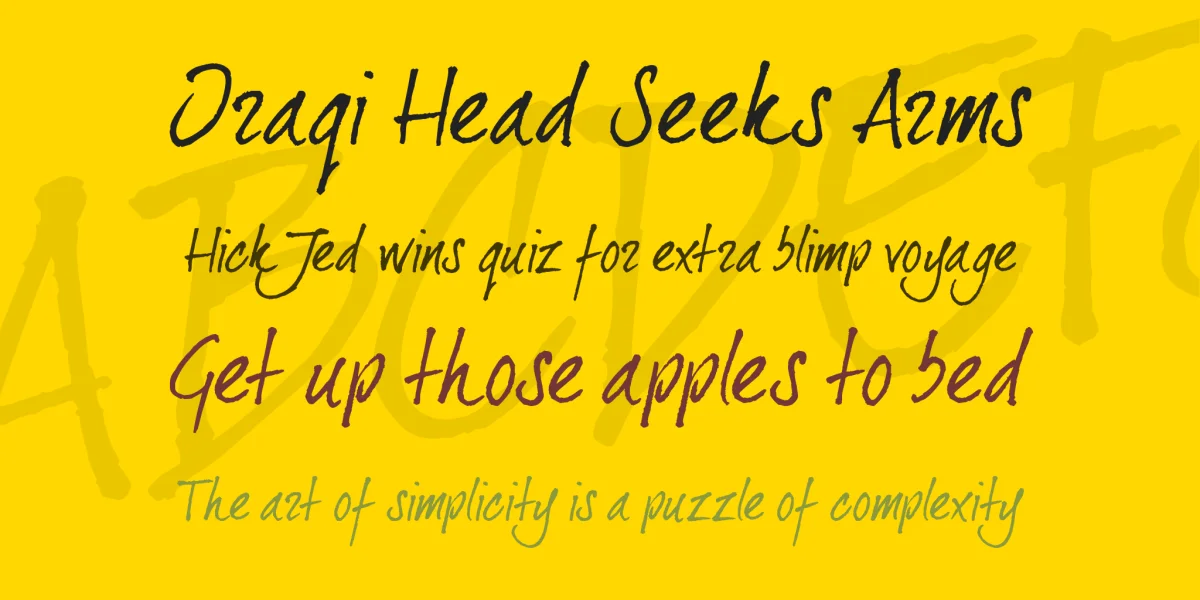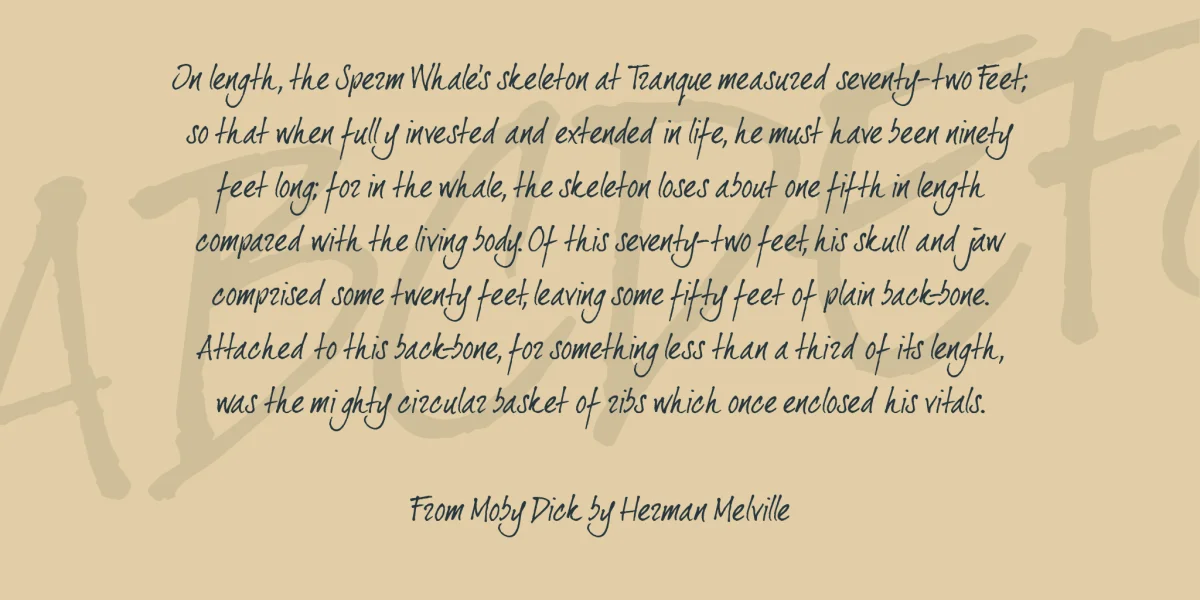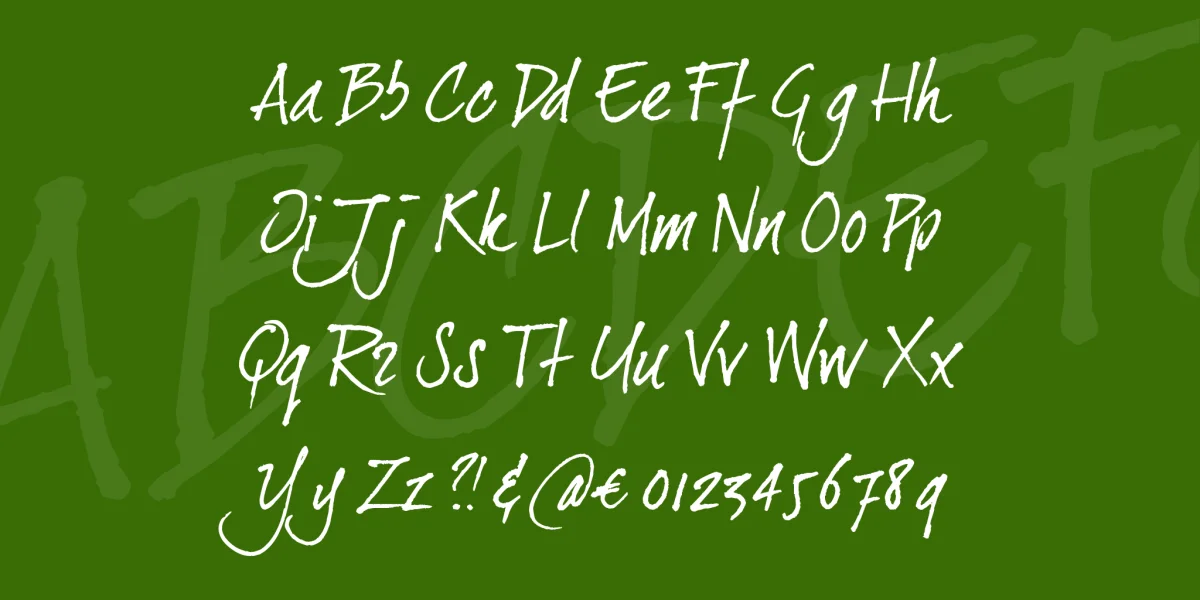
It's new! It's improved! With all new characters and it's a whole lot easier to read.
And it's been used in Grand Theft Auto Vice City's Malibu club and in DJ Tiësto's new video 'Just be'!